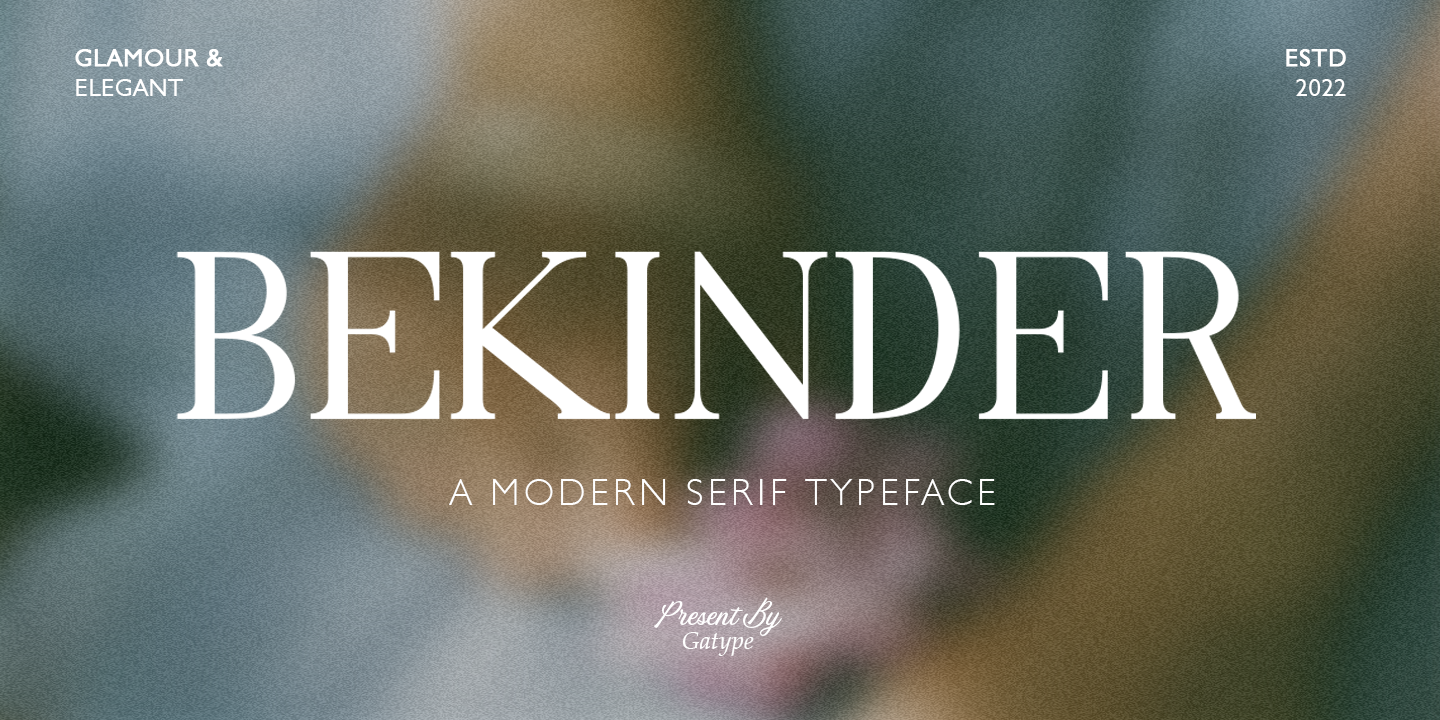
Bekinder Font is perfect for kindness campaign branding, compassionate non-profit organizations, mindfulness wellness centers, gentle therapy practices, anti-bullying educational materials, and empathetic community outreach programs. Its gentle character makes it ideal for mental health advocates, kindness movement organizers, compassionate healthcare providers, empathy educators, and any application requiring nurturing typography that conveys human kindness, emotional gentleness, and the transformative power of compassionate communication and empathetic understanding.
Bekinder Font is exciting because it embodies the gentle strength and healing power of human kindness through softly crafted letterforms that radiate warmth, compassion, and the profound impact that kindness has on human relationships. Its nurturing proportions and empathy-inspired details reflect the tender care and emotional safety that kindness provides, making it perfect for organizations dedicated to fostering empathy and creating more compassionate communities. The font's kind character transforms communications into expressions of human compassion.
Bekinder Font family includes compassionately-designed weight variations typically featuring Light, Regular, Medium, and Bold options with gentle styling that maintains empathetic authenticity. The family often incorporates heart symbols, caring ornaments, and kindness elements designed for compassionate applications, providing designers with comprehensive tools for creating authentic, kindness-focused typographic compositions.